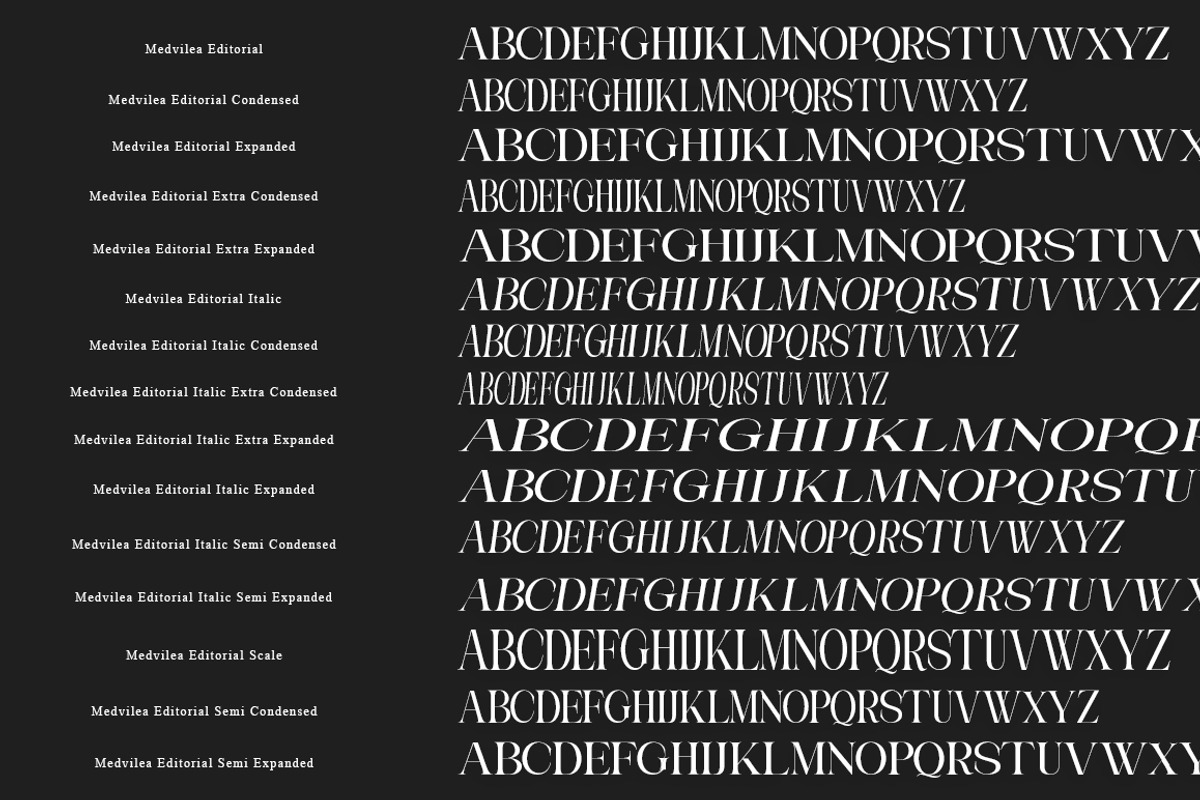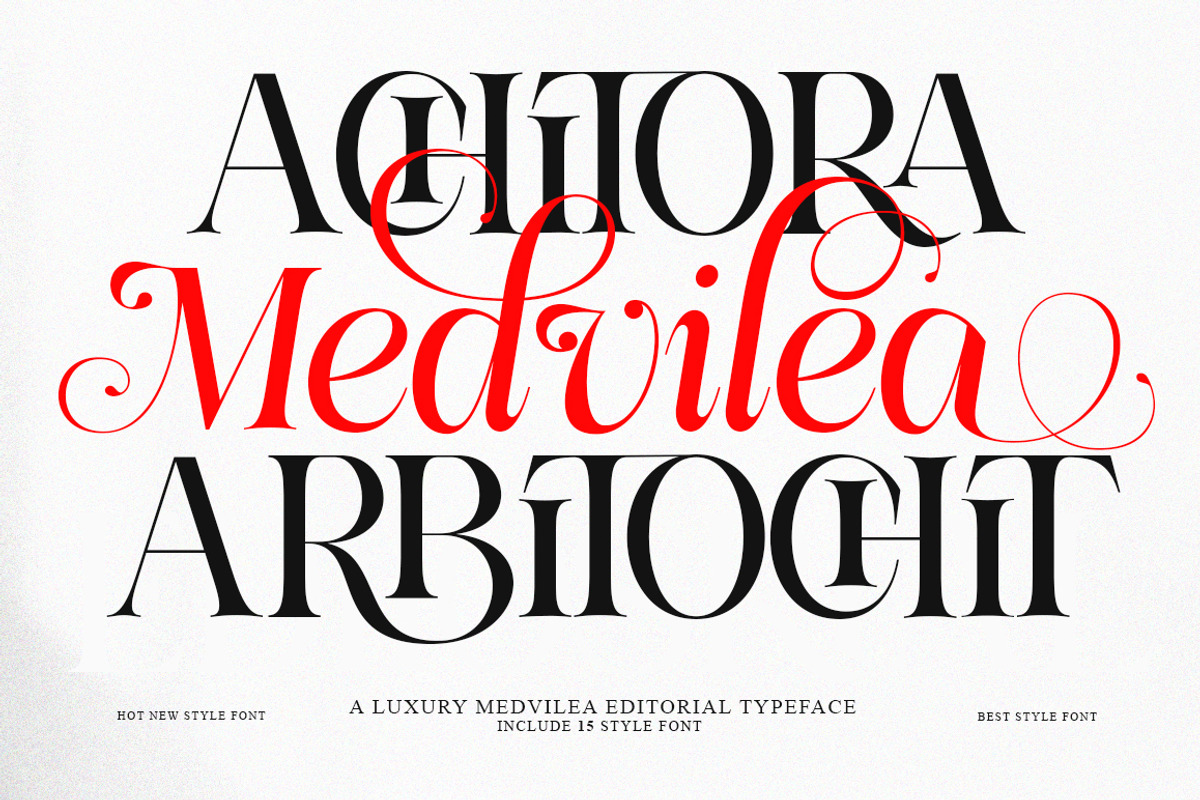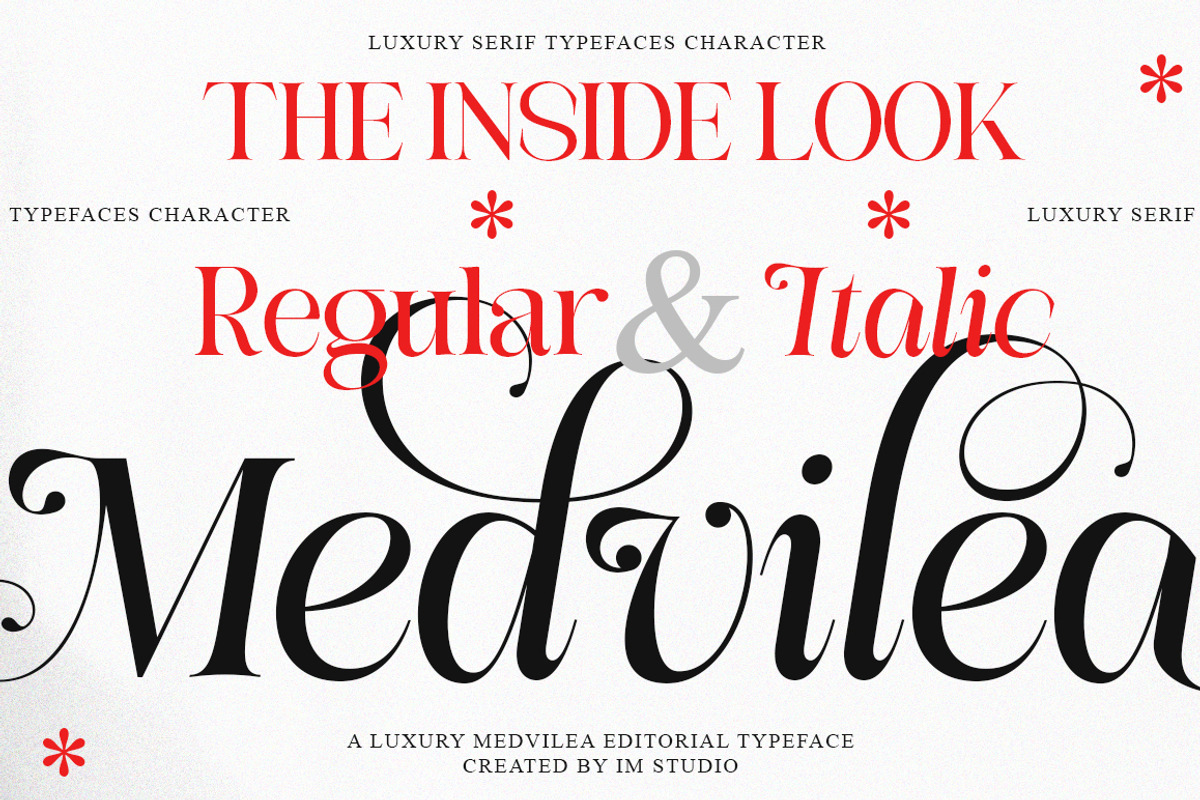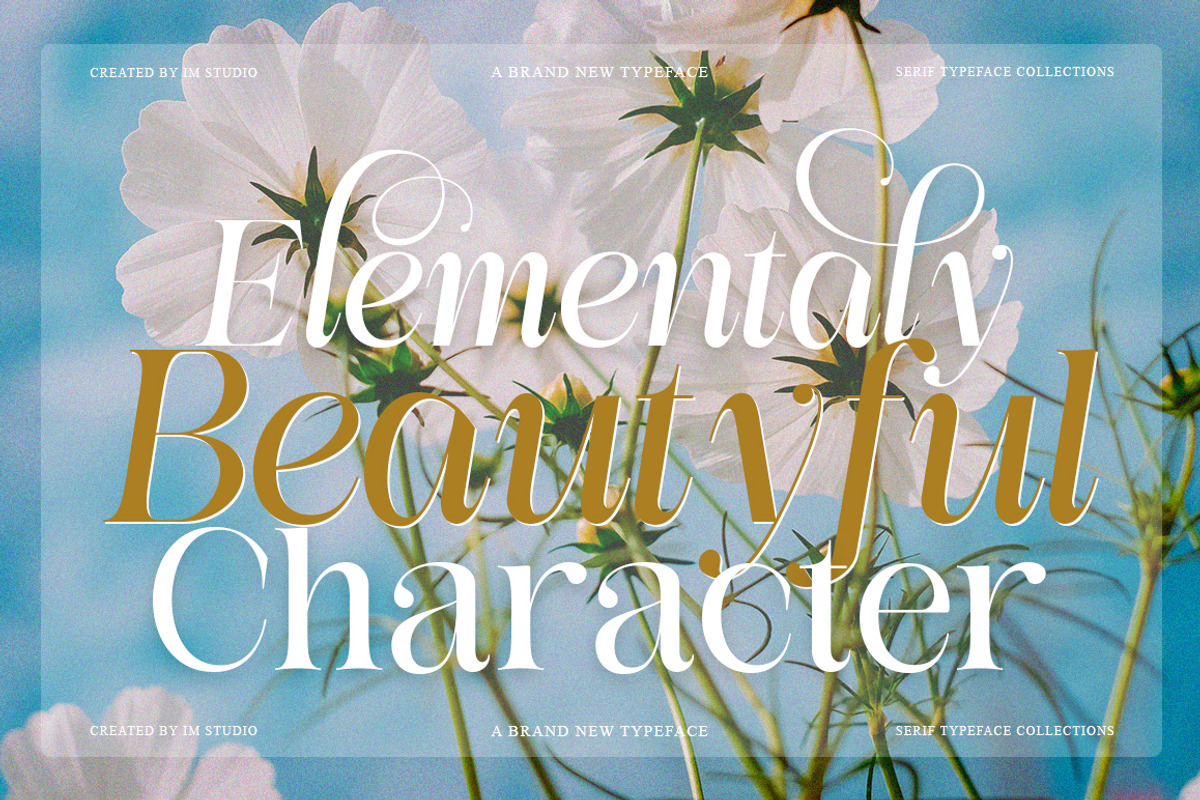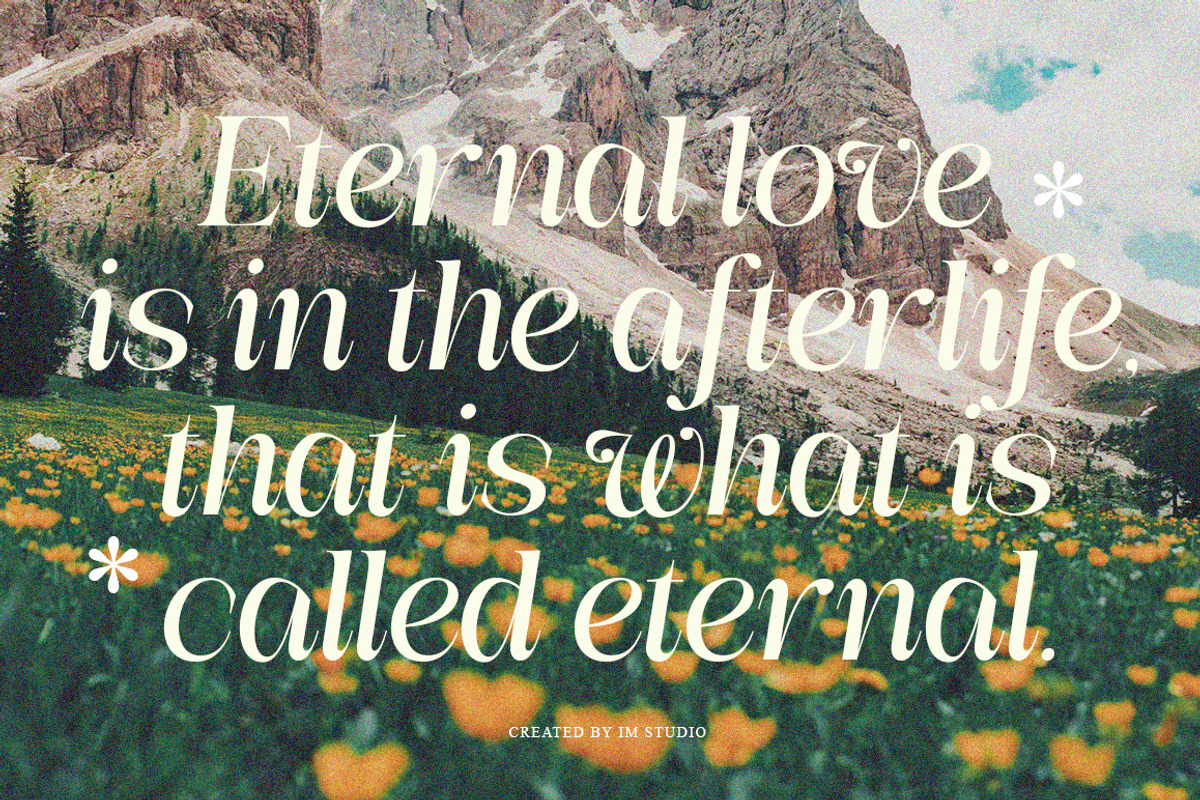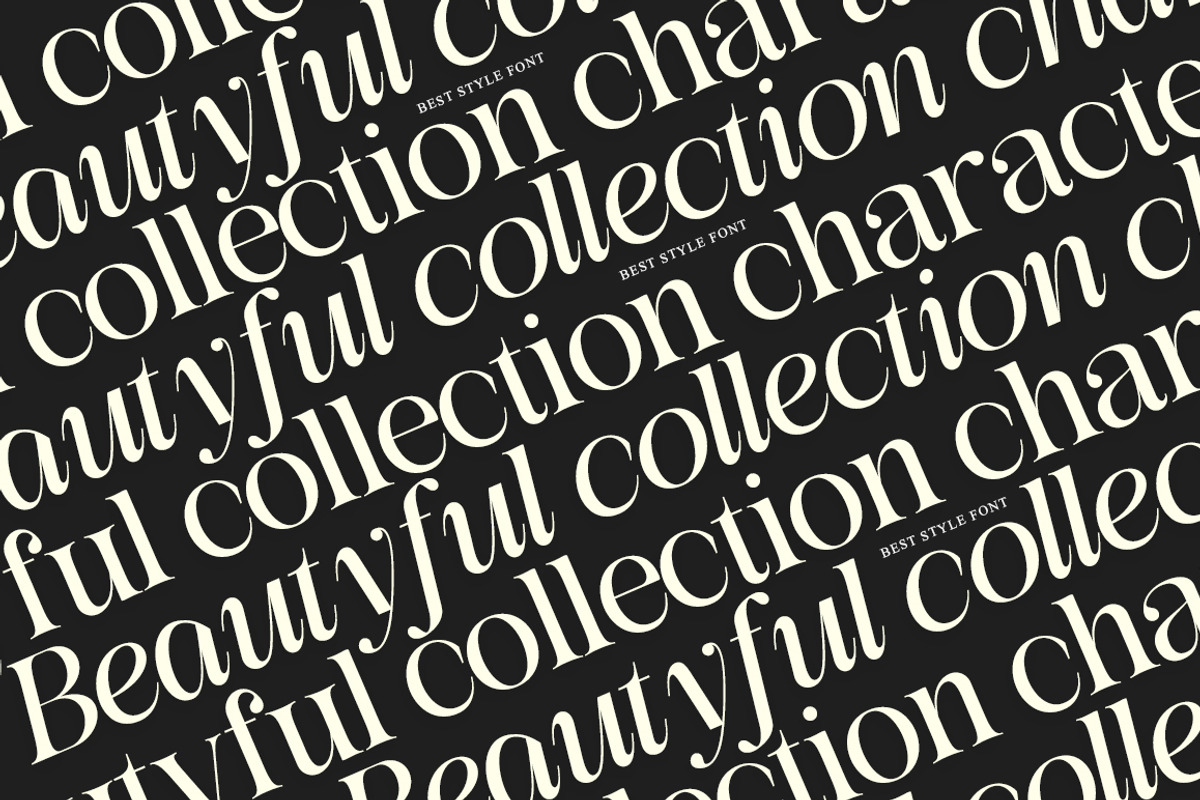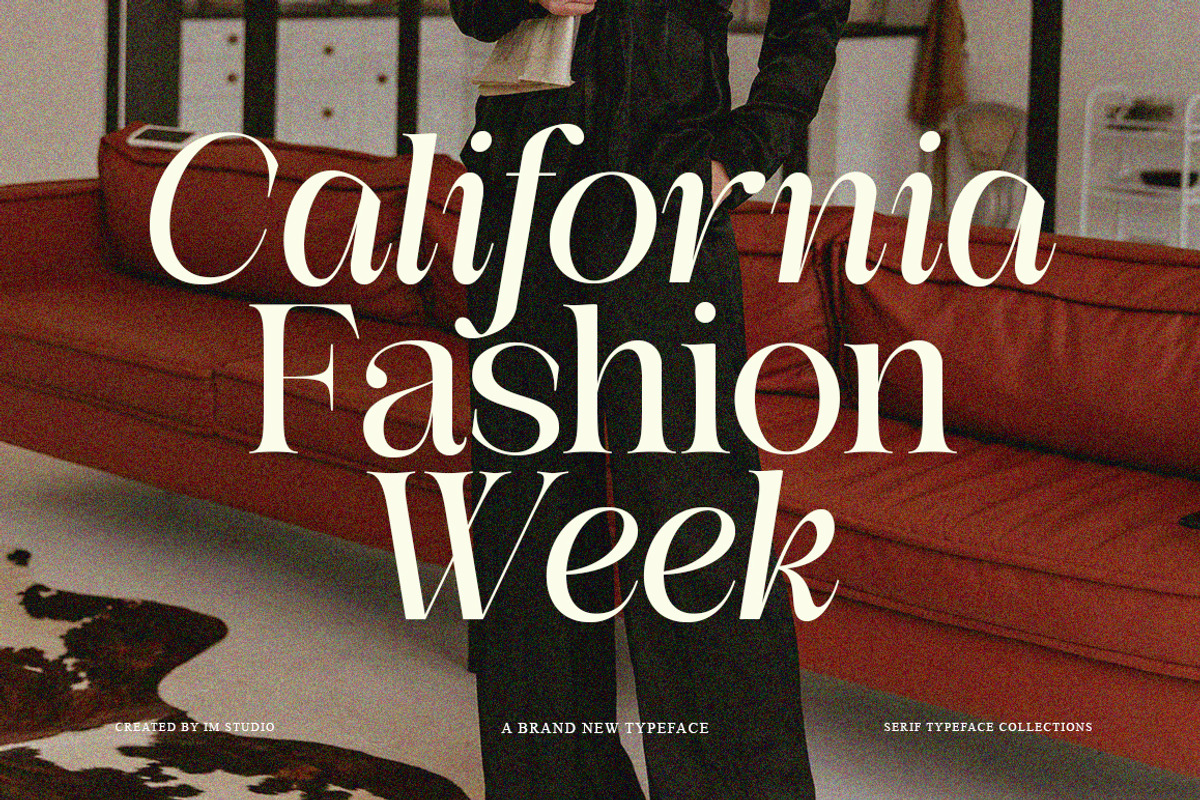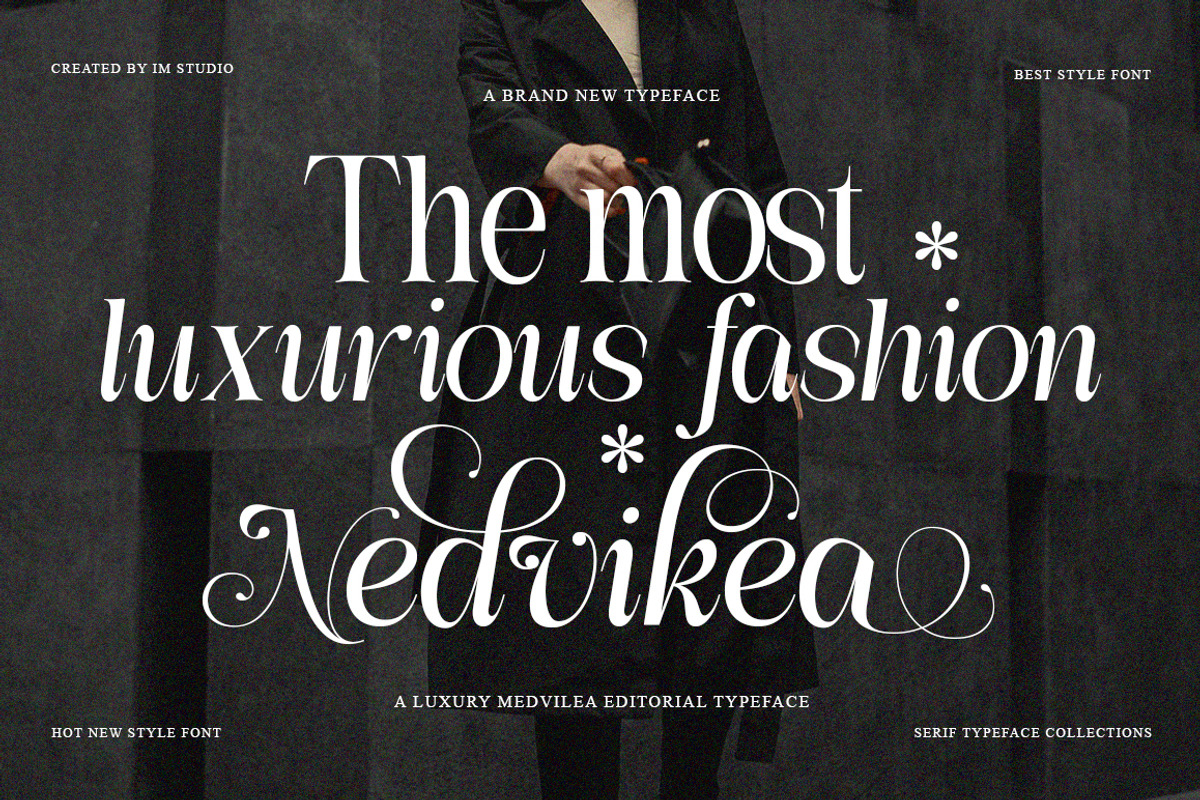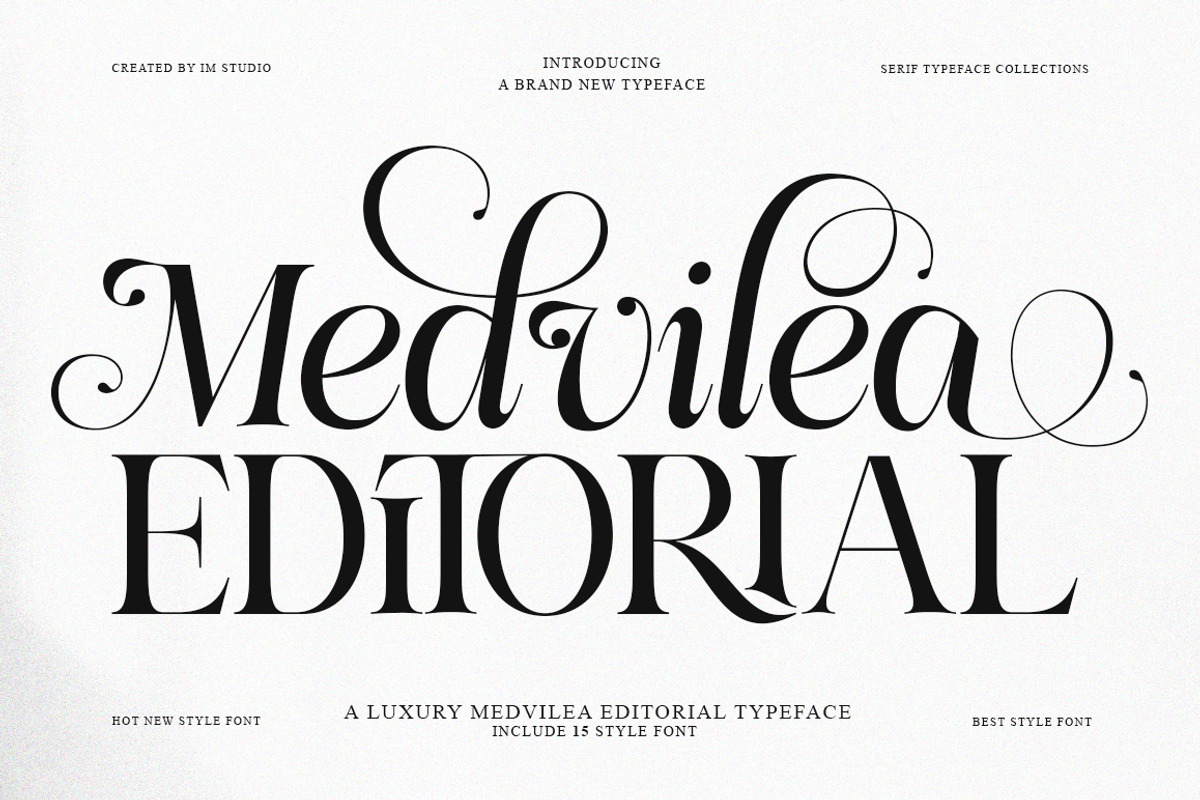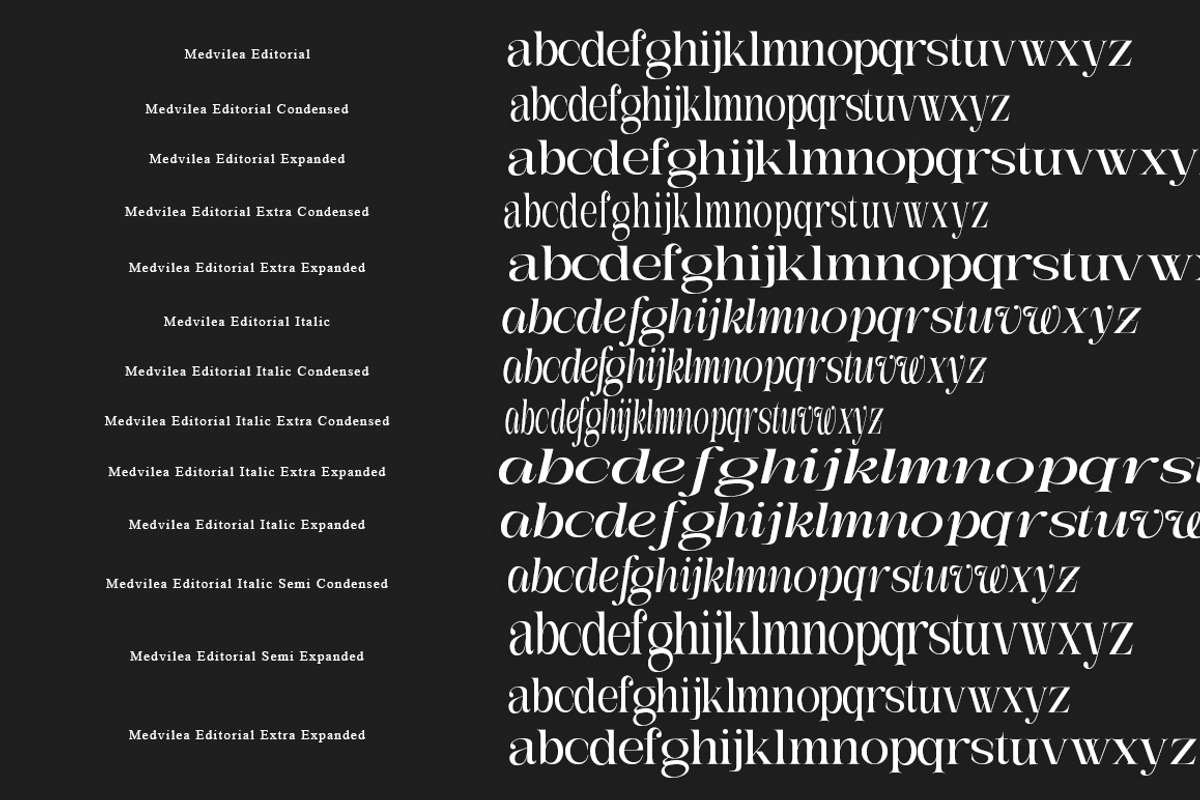
Medvilea Editorial | 15 Style Font
Medvilea Editorial | 15 Font Styles – The Quintessence of Modern Luxury Bring timeless luxury into your designs with Medvilea Editorial. A precision-crafted modern display serif typeface, this font combines subtle contrasts and flowing curves to create a high-end typographic aesthetic.
Medvilea is more than just a font; it's a style statement for projects that demand sophistication, elegance, and a strong visual character.
Why Choose Medvilea Editorial? Endless Versatility: This collection includes 15 uniquely curated font styles—from the sleek Condensed to the bold Extra-Expanded—giving you complete freedom to experiment.
Visual Precision: Elegantly detailed curves make it a top choice for luxury branding, fashion editorials, and premium magazine typography.
Multilingual Support: Comes with uppercase and lowercase characters, as well as extensive international language support for global design needs.
The Collection (15 Styles Included): Explore various variations to create the perfect visual hierarchy:
Standard: Regular & Italic.
Proportions: Condensed, Semi-Condensed, Expanded, Semi-Expanded, & Extra-Expanded.
Dynamic Variants: Semi-Condensed Italic, Extra-Condensed Italic, Expanded Italic, and more.
Best Design Applications: Branding & Identity: Luxury logos, exclusive business cards, and corporate identities.
Editorial & Publishing: Magazine titles, book layouts, and headlines.
Fashion & Lifestyle: Fashion event posters, premium product labels, and cosmetic packaging.
Digital Presence: Elegant web typography, aesthetic social media content, and other digital assets.